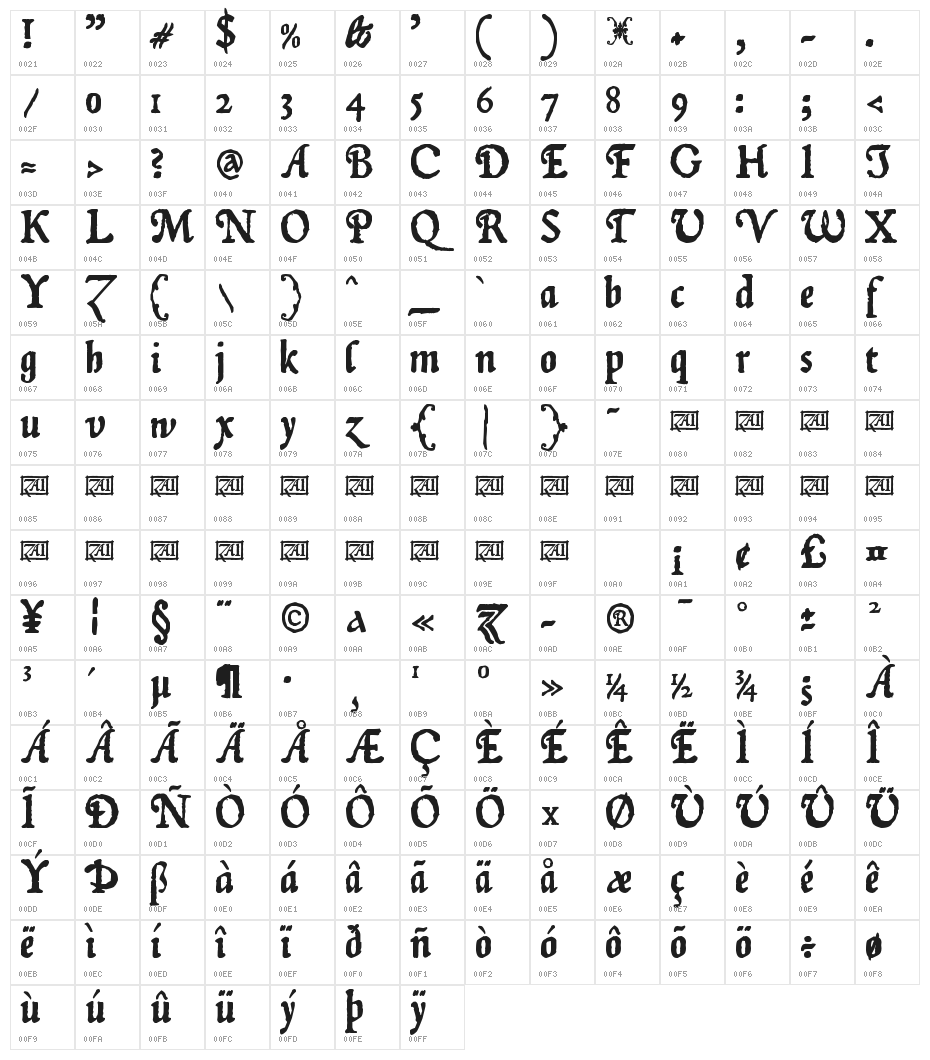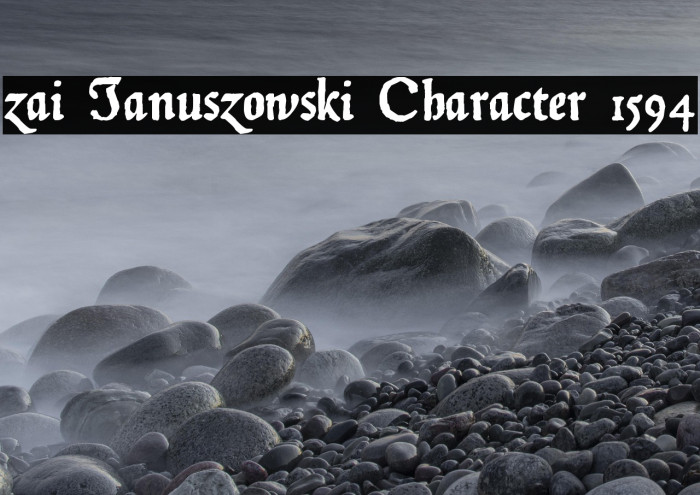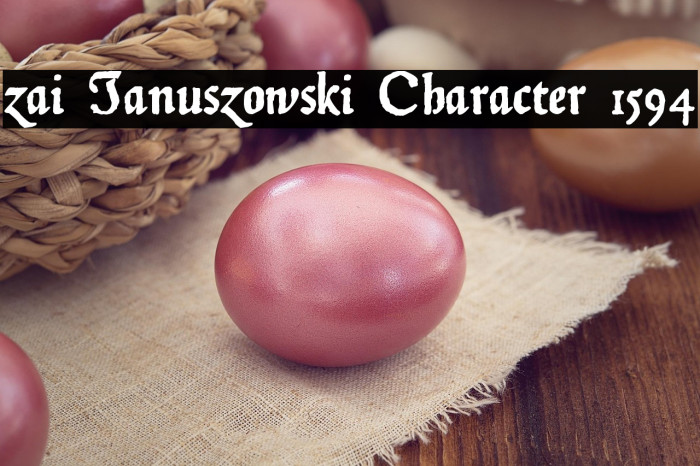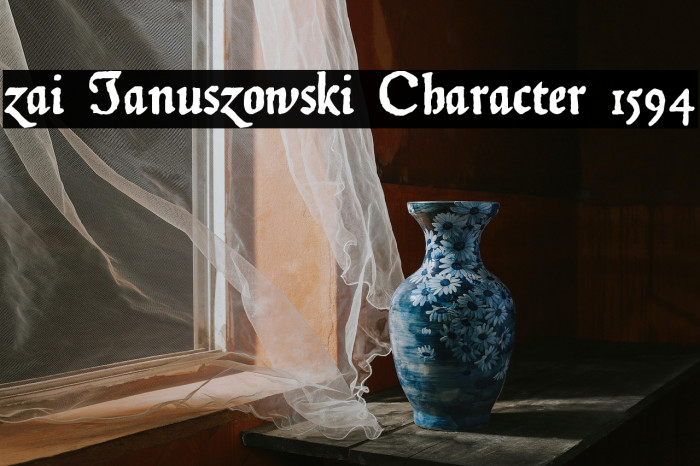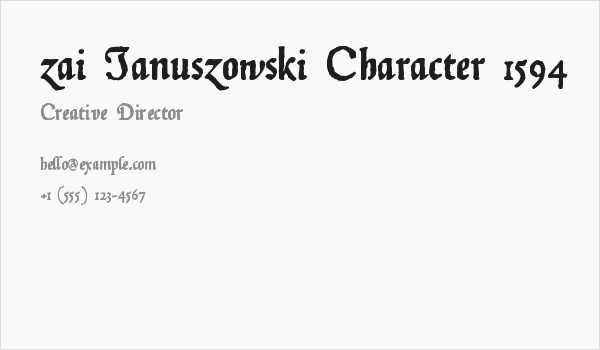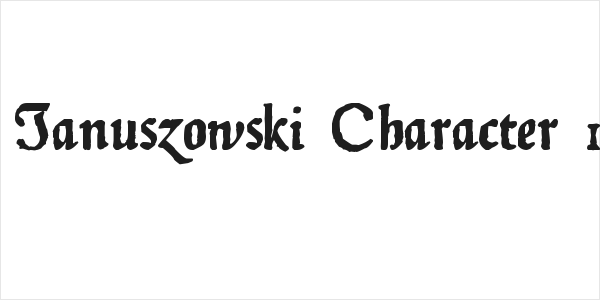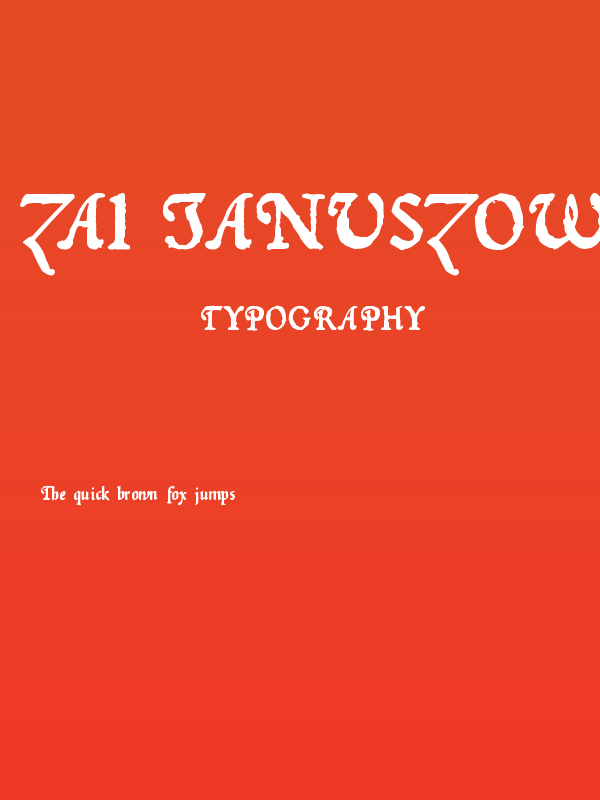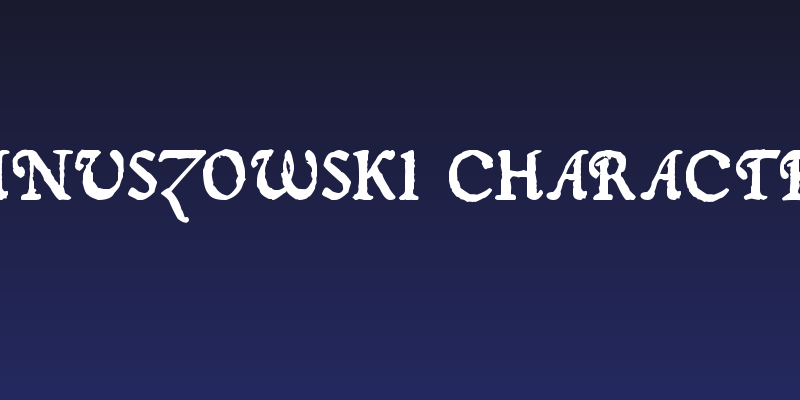
zai Januszowski Character 1594 Font
zai Januszowski Character 1594 Description
This font exhibits a bold and dramatic style, characterized by its heavy strokes and intricate detailing. The uppercase letters are ornate, with sharp serifs and a medieval flair, while the lowercase letters maintain a consistent thickness, adding to the overall boldness. The numbers are equally stylized, with a strong presence and unique curves. Special characters are designed with an artistic touch, enhancing the font's decorative appeal. This font's distinctiveness lies in its ability to convey a sense of history and tradition, making it suitable for projects that require a touch of elegance and antiquity.
| Use Case | Headlines, Logos, Decorative text |
| Proposed Projects | Ideal for historical themed designs, book covers, posters, and branding that requires a classic and bold aesthetic. |